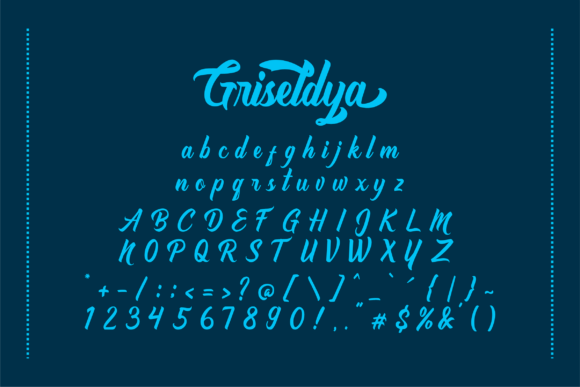
Introduction to Griseldya Font
As designers, we’ve all been there – stuck on a creative project, desperate for the perfect font to bring our vision to life. The cursor blinks, our minds go blank, and we start searching for that elusive design resource that will elevate our work. And then, like a breath of fresh air, we stumble upon it – the Griseldya Font.
This sweet and charming script font is more than just a pretty face; it’s a game-changer for designers. With its playful touch and versatility, Griseldya Font is the perfect addition to any design project. Whether you’re working on a high-quality brochure, a creative website, or a social media campaign, this font is sure to add a professional yet approachable feel to your work.
Key Features of Griseldya Font
- High-quality, professional font design suitable for creative projects and design resources.
- Transparent background and clean design make it easy to use in various design applications.
- Font size: 300 DPI, making it suitable for print and digital designs.
- Unique characteristics include elegant lines, refined curves, and a sophisticated aesthetic.
- Perfect for designers looking for a high-quality, free font resource for their creative projects.
Honest Review: Griseldya Font
I recently stumbled upon the Griseldya Font while searching for a design resource to elevate my creative project. As a designer, I’m always on the lookout for high-quality fonts that can add a unique touch to my work.
First impressions are everything, and Griseldya Font didn’t disappoint. The font’s elegant and refined design makes it perfect for a wide range of creative projects. I particularly love the way the font looks with a transparent background, really making the text stand out.
- Unique and elegant design
- Perfect for creative projects that require a touch of sophistication
- Not suitable for projects that require a bold or playful font
- May require additional styling to make it stand out in certain design contexts
Overall, I’m impressed with the Griseldya Font. While it may not be the best fit for every project, it’s definitely a high-quality design resource that can add a touch of sophistication to the right creative project.
The Griseldya Font is ideal for a variety of creative projects, including branding, marketing materials, and digital publications. Its elegant style and high-quality design make it a popular choice among designers. With its transparent background, the Griseldya Font is perfect for creating visually appealing designs that pop.
To get the most out of the Griseldya Font, experiment with different font sizes, colors, and styles to find the perfect combination for your design. Additionally, consider using the font with other high-quality design resources to create a cohesive and professional look.